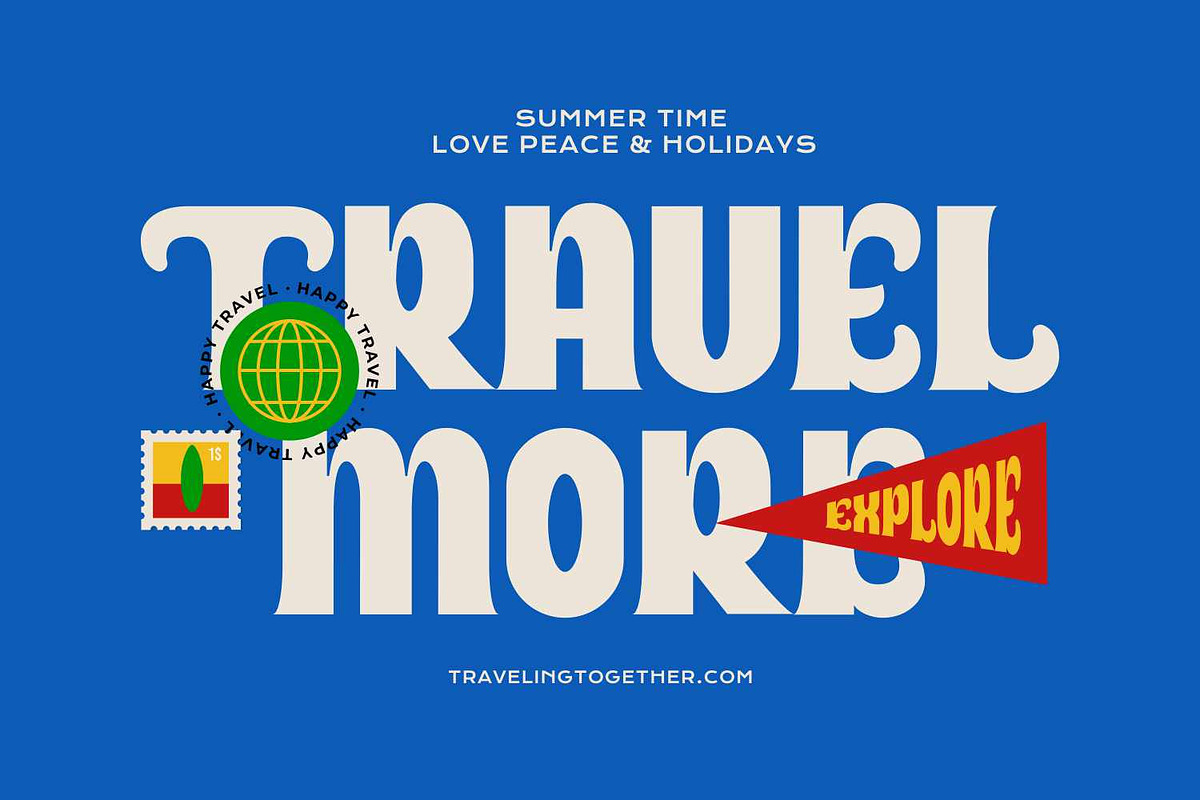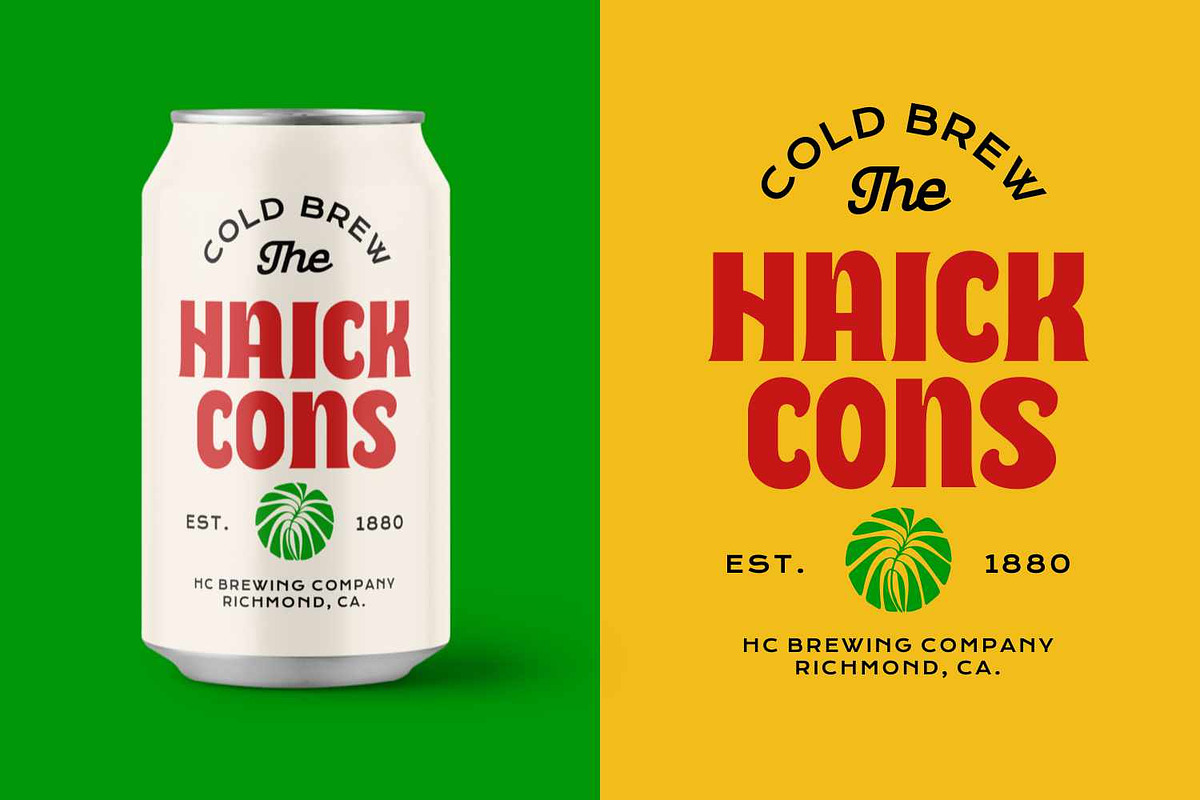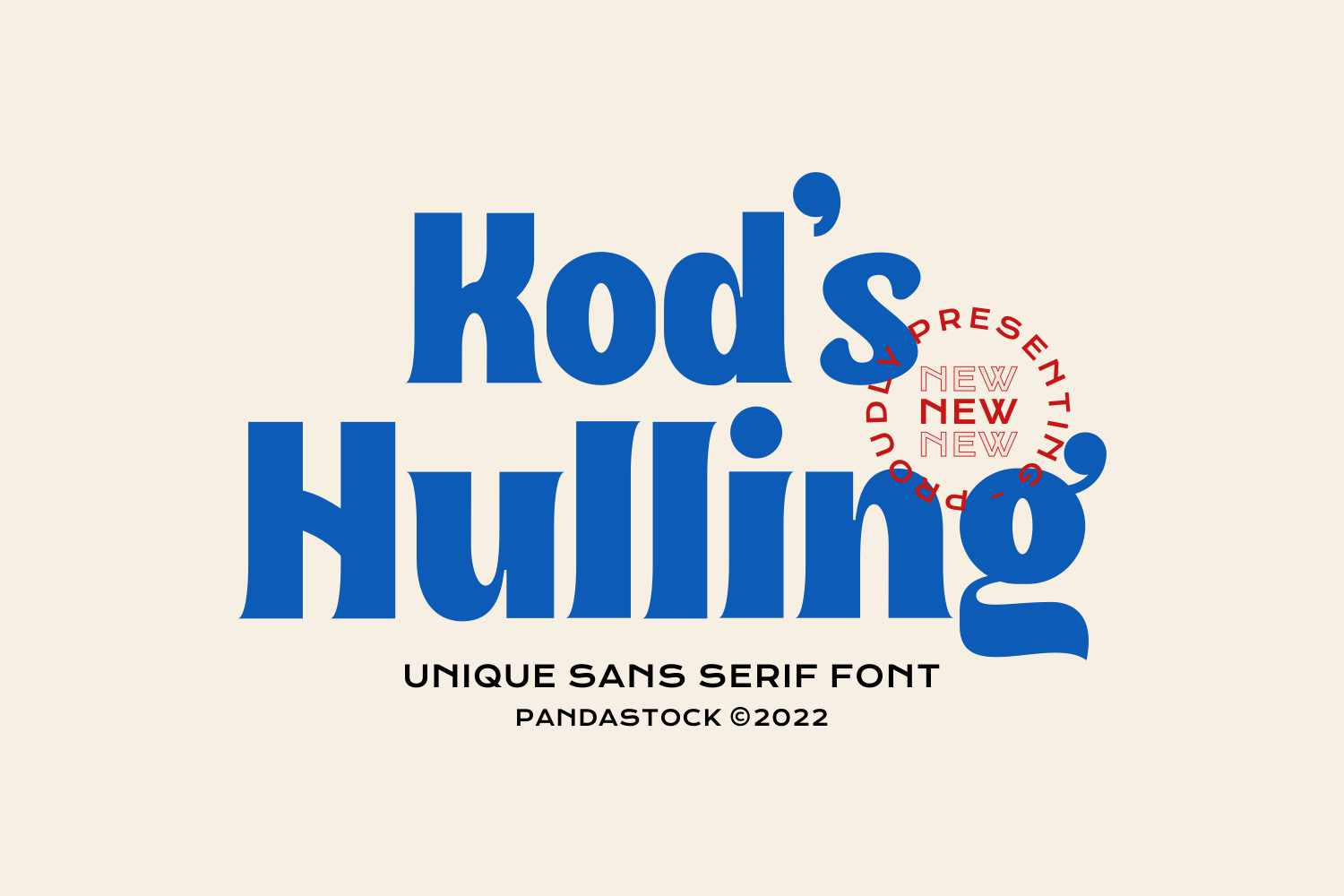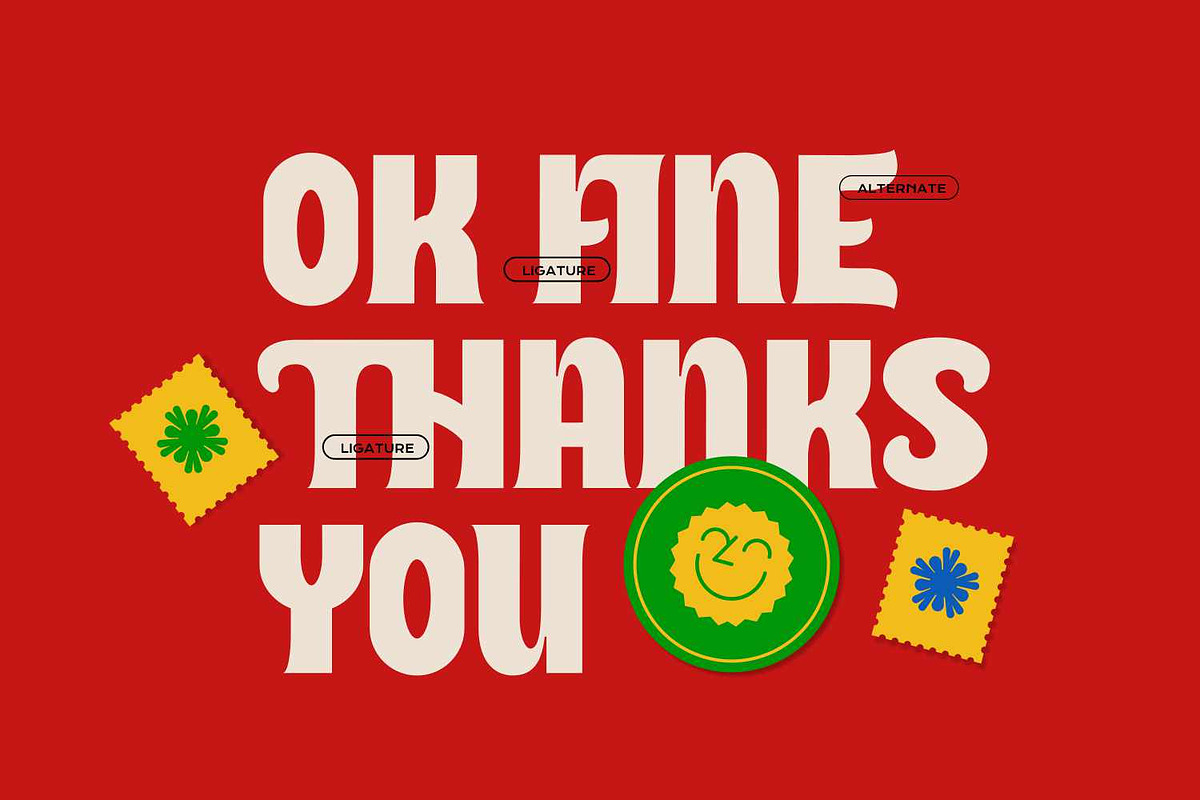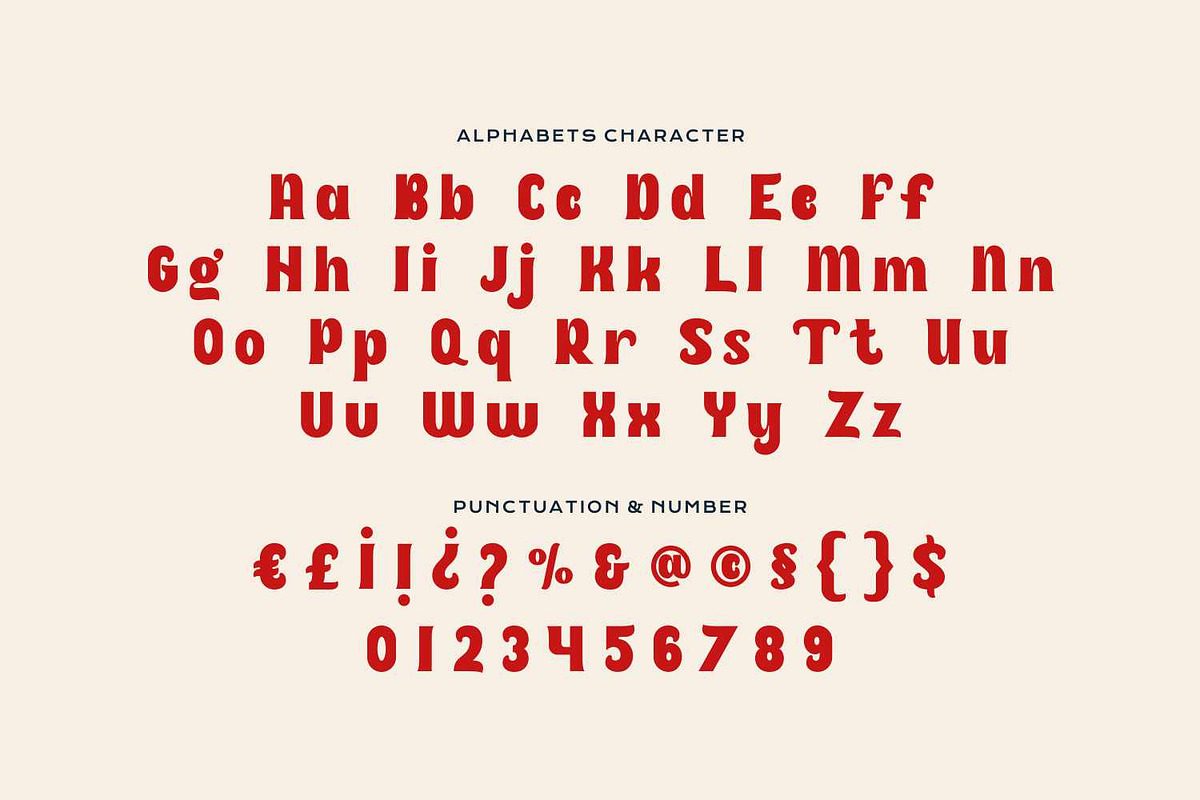
Kods Hulling - Bold Playful Font
Introducing Kods Hulling is a bold playful font that brings a groovy, retro soul to modern design. Inspired by the bold typography of the 70s, Kods Hulling blends groovy curves with a sturdy, confident structure, making it perfect for projects that need to make a memorable statement.
This typeface is the ideal choice for dynamic and engaging applications. Its uses include vibrant travel posters, appealing food packaging, and scroll stopping social media graphics.
Uppercase and Lowecase Characters.
PUA Encoded Characters.
Numerals and Punctuations.
Alternates and Ligatures.
Multilingual Support.